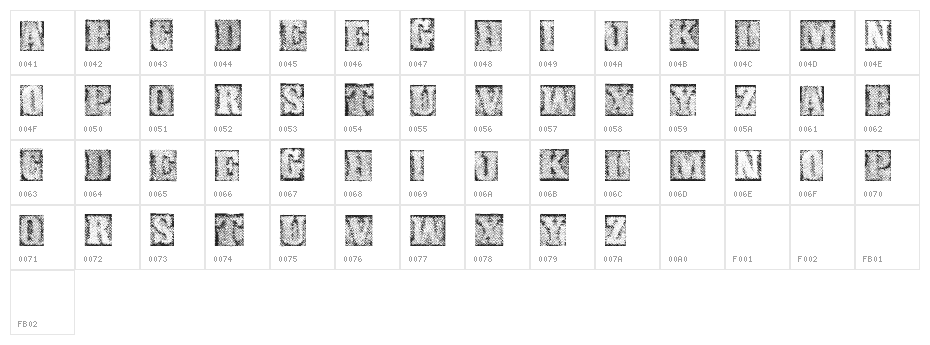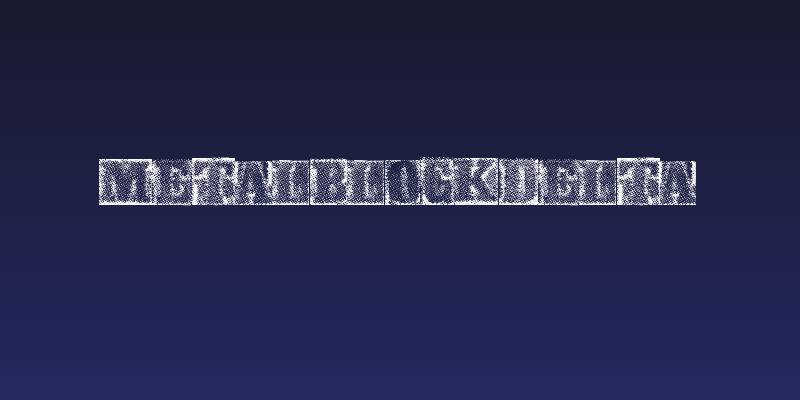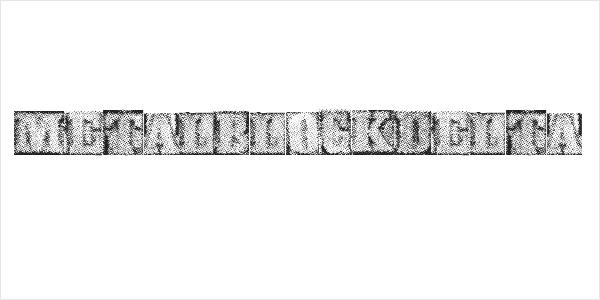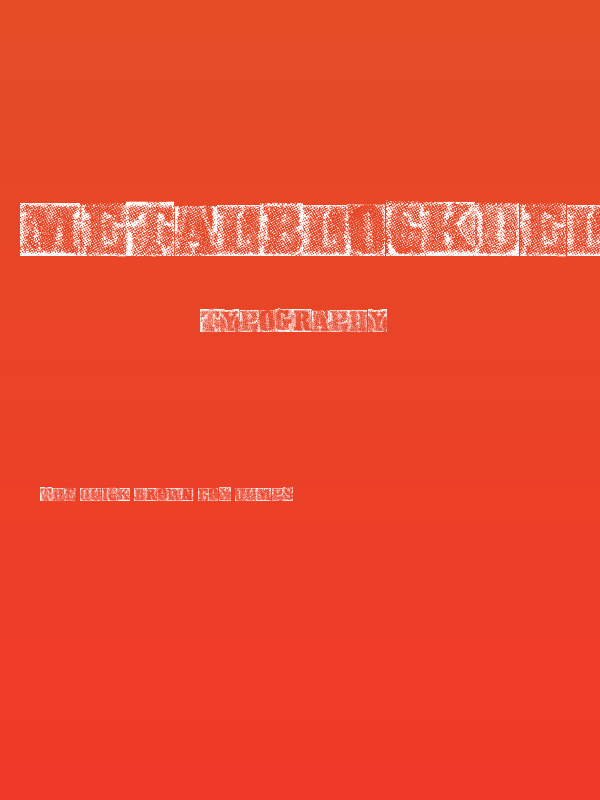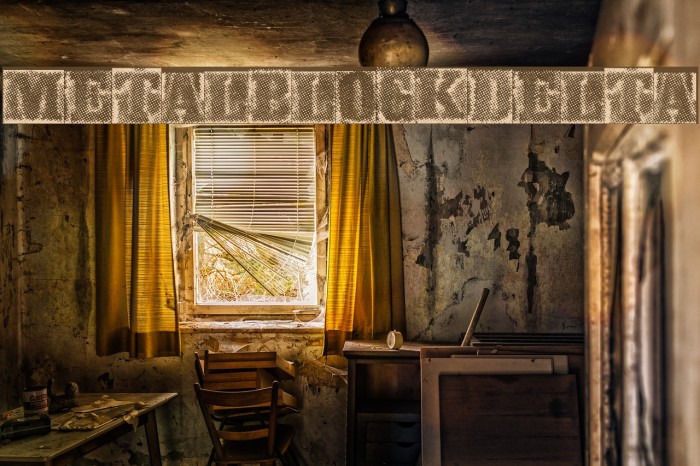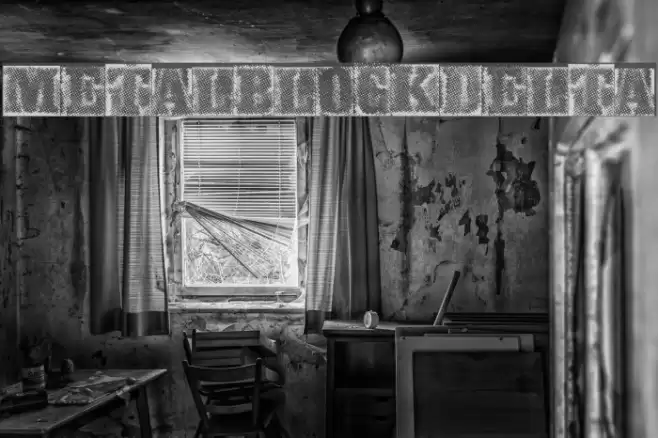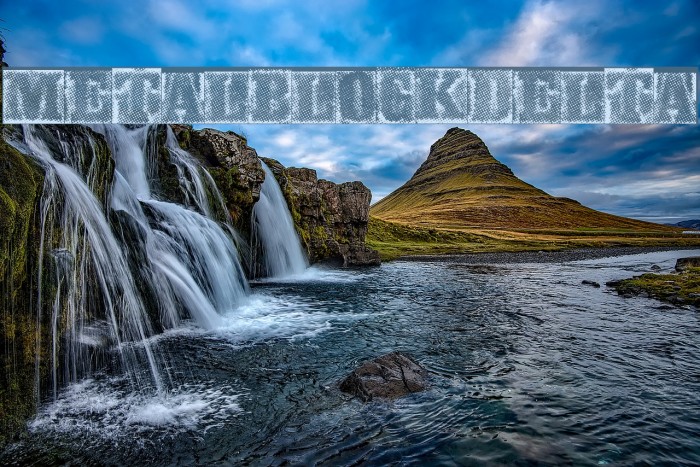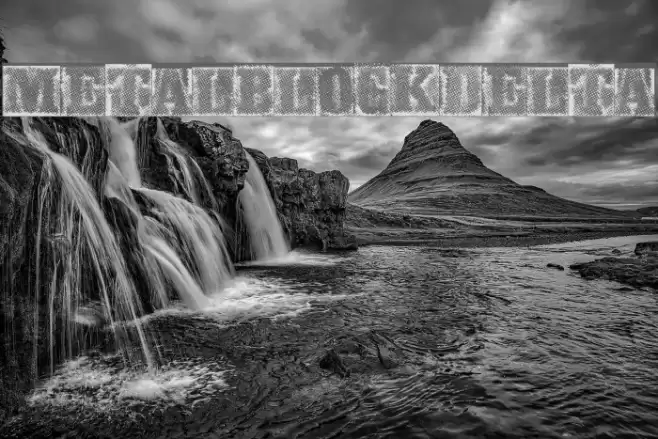
MetalblockDelta Font
MetalblockDelta Description
This font features a bold, blocky style with a distressed texture, giving it a rugged and industrial appearance. Each character is enclosed within a square, enhancing its geometric and structured look. The letters are uppercase, with a consistent height and width, creating a uniform and cohesive design. The texture within each letter adds depth and a tactile quality, reminiscent of stamped metal or stone. This font is ideal for projects that require a strong, impactful visual presence, such as posters, signage, or branding for industries related to construction, manufacturing, or heavy equipment.
| Overall Style | Industrial, Rugged, Geometric |
| Use Case | Headlines, Logos, Signage |
| Proposed Projects | Ideal for posters, industrial-themed branding, signage, and packaging. |